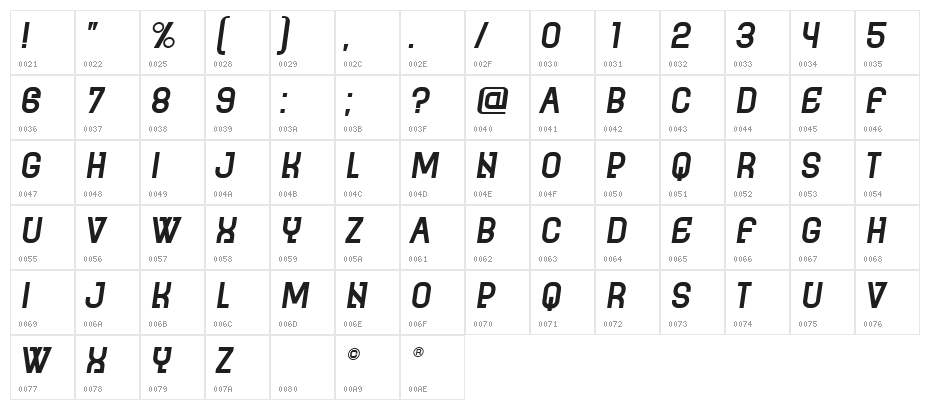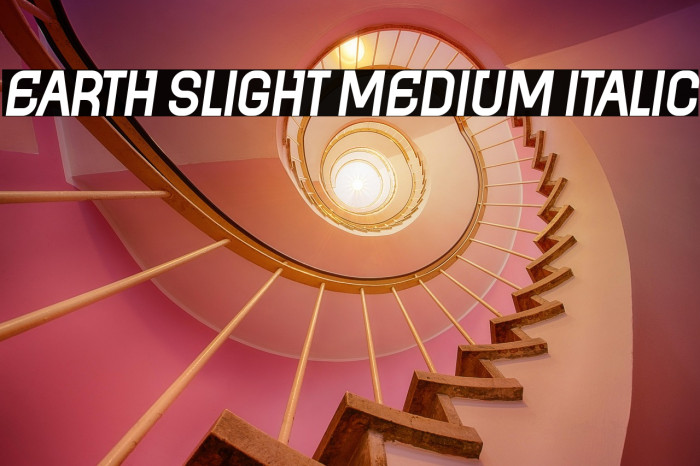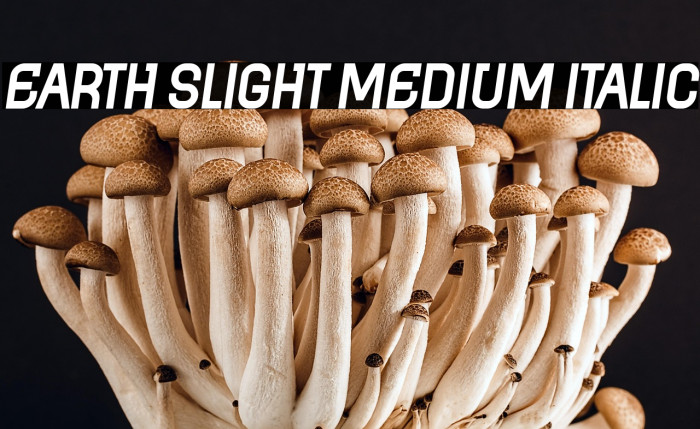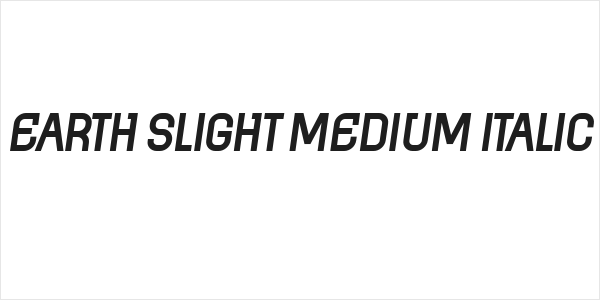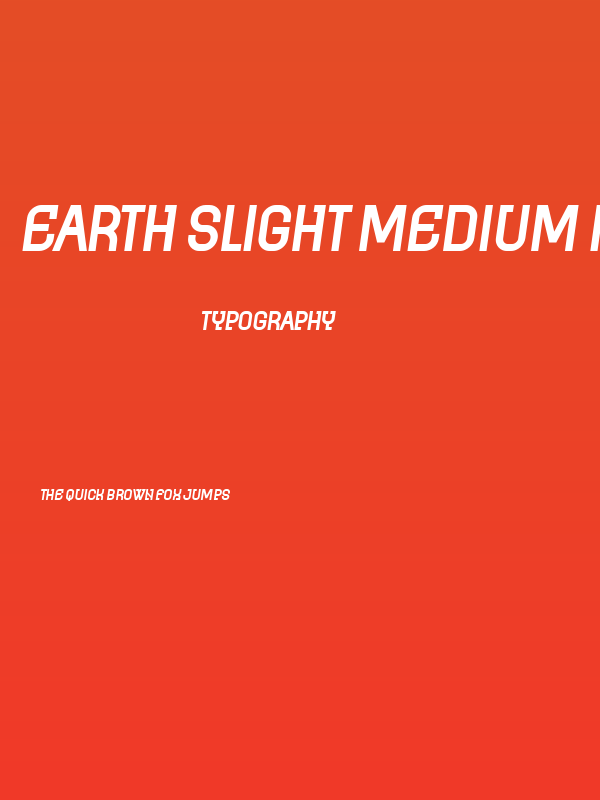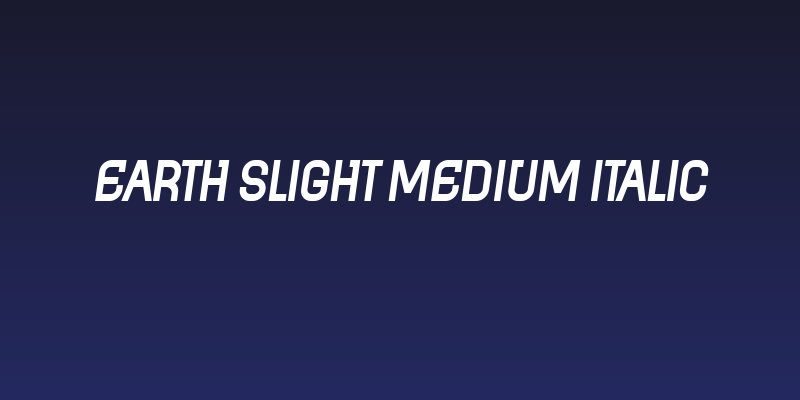
Earth Slight Medium Italic Font
Earth Slight Medium Italic Description
This font features a sleek, modern design with a slight italic slant, giving it a dynamic and forward-moving appearance. The characters are bold with a medium weight, offering a strong presence without overwhelming the viewer. The strokes are consistent, with medium contrast, providing clarity and readability. The overall style is contemporary, making it suitable for a variety of digital and print applications. The character spacing is normal, ensuring legibility across different sizes and contexts. This font's design is versatile, making it ideal for projects that require a modern and professional look.
| Use Case | Headlines, Logos, Digital Media |
| Proposed Projects | Ideal for branding, advertising, digital media, and editorial design. |